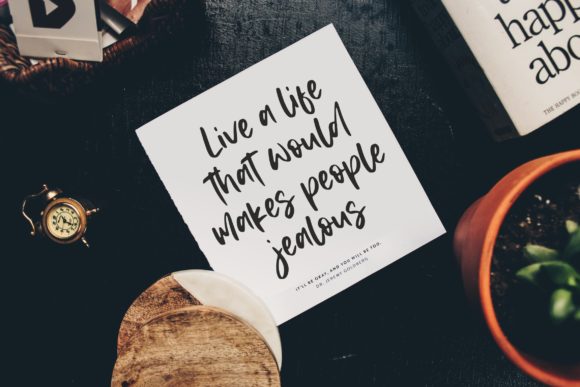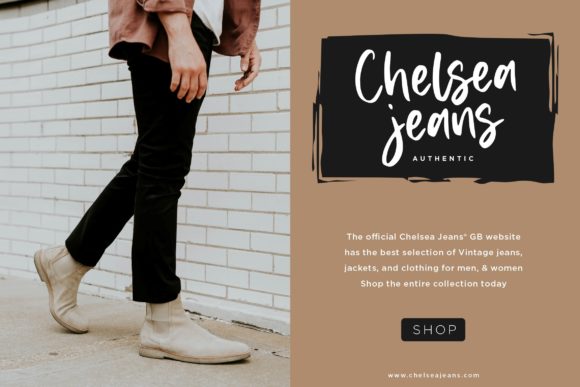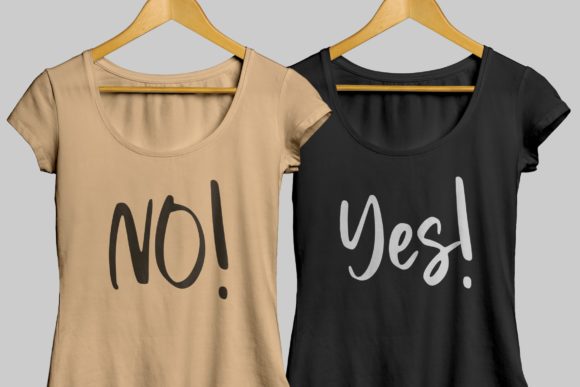
Introduction to Memphis River Font
Have you ever stumbled upon a design that makes you stop and take a second look? For me, it was a beautiful wedding invitation with the Memphis River Font that left me speechless. The elegant handwriting style, the way the letters flowed effortlessly on the transparent background – it was pure magic. As a designer, I know how crucial it is to find that perfect font that elevates a creative project to the next level.
That’s why I’m excited to share with you the Memphis River Font, a high-quality design resource that’s sure to make your designs stand out. Whether you’re working on a wedding invitation, a thank you card, or a logo, this font is sure to bring a touch of elegance and sophistication to your work.
What sets the Memphis River Font apart is its versatility and beauty. With a free download available, designers can now access this valuable resource and take their creative projects to new heights. So, let’s dive into the world of Memphis River Font and explore its features and benefits.
Key Features of Memphis River Font
- Memphis-inspired aesthetic with a modern twist, perfect for designers seeking a unique look
- Transparent background option for seamless integration into various design settings
- Includes a range of glyphs and characters, suitable for various design applications, including logos, typography, and graphics
Honest Review: Memphis River Font
I recently had the chance to work with the Memphis River Font, and I must say it’s been a game-changer for my creative projects. This font is a fantastic design resource that offers a lot of versatility and style.
- High-quality design that’s perfect for modern projects
- Transparent background, allowing for easy customization and layering
- Perfect for creating eye-catching headlines and titles
- May not be suitable for traditional or conservative projects due to its bold and modern design
- Not as many font variations as some other popular fonts
Overall, I’m thoroughly impressed with the Memphis River Font. Its unique style and high-quality design make it a valuable addition to any designer’s toolkit. With its free download option and transparent background, it’s a great resource for designers looking to add some flair to their creative projects.
Memphis River Font
The Memphis River Font is a high-quality design resource that can elevate your creative project to the next level. This versatile font is available for free download and can be used for a variety of purposes.
The Memphis River Font is suitable for a variety of use cases, including:
Logo design
Branding materials
Marketing materials
Web design
Tips for Getting the Most Out of the Memphis River Font
To get the most out of the Memphis River Font, follow these tips:
Use the font in conjunction with a transparent background to create a clean and modern look.
Experiment with different font styles and sizes to create visual interest.
Use the font in combination with other design elements to create a cohesive look.